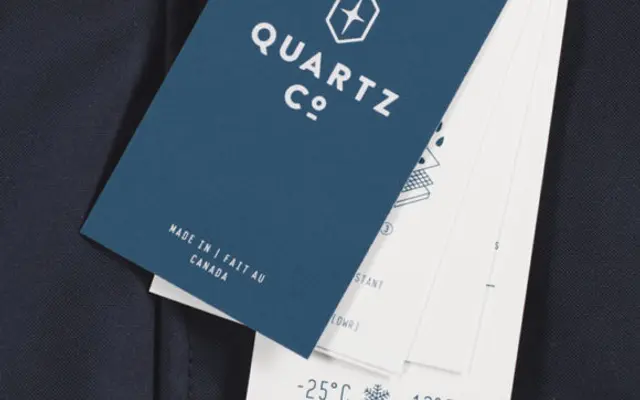
Vells Mono
A monospaced typeface from Canadian foundry Feedtype, designed for technical and coding applications.
Vells Mono is a fixed-width typeface from Feedtype, the Canadian type foundry. As part of the Vells family, it carries a monospaced structure suited to code editors, terminal interfaces and technical documentation. Details on weights and language support were not available from the page content provided.
A monospaced typeface, as indicated directly by the 'Mono' suffix in the name and its classification as a fixed-width design intended for code or technical use.